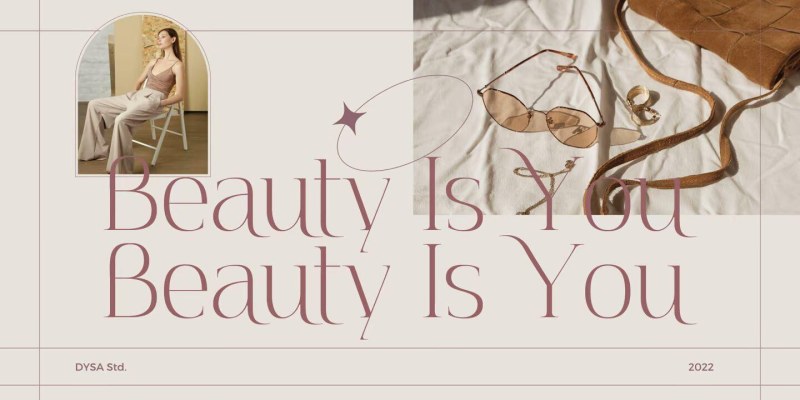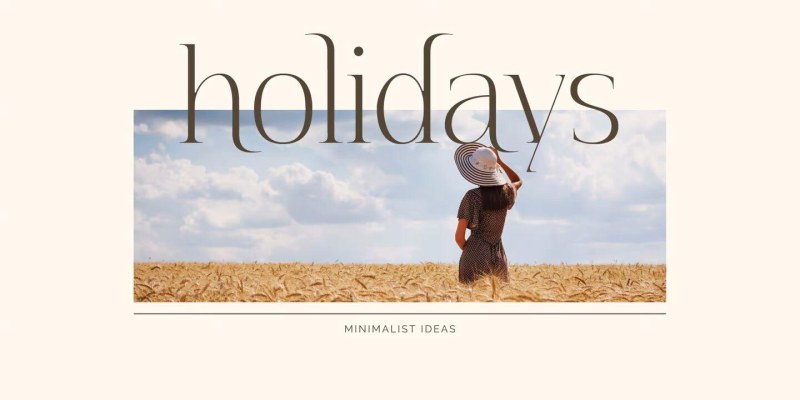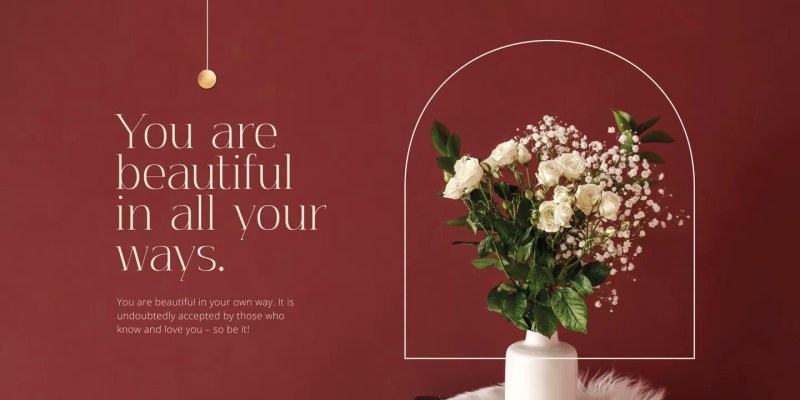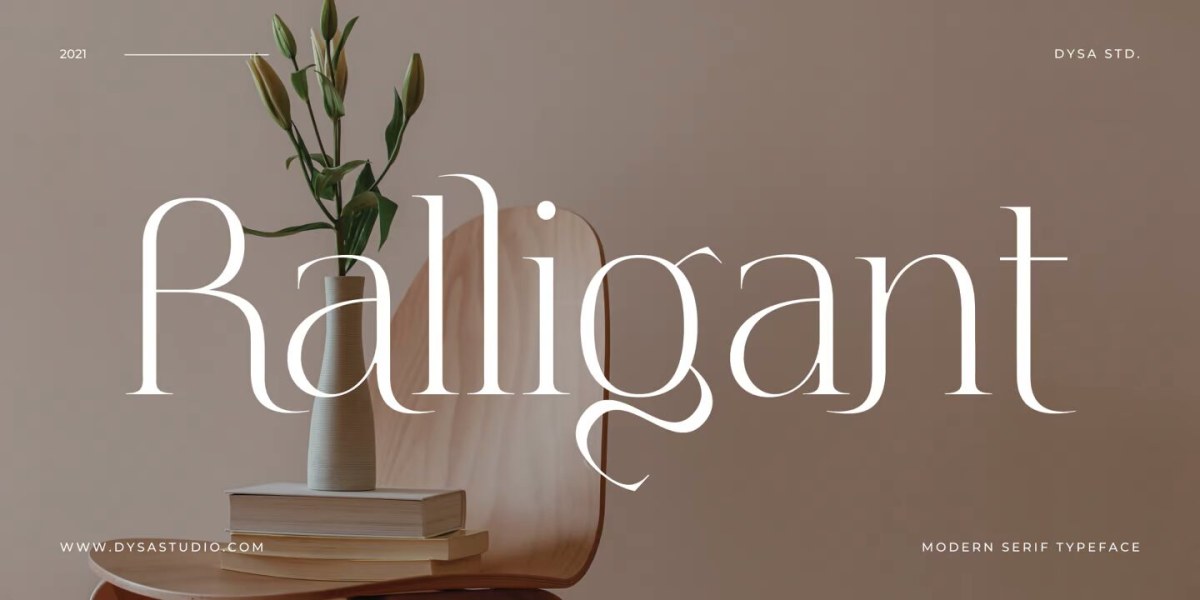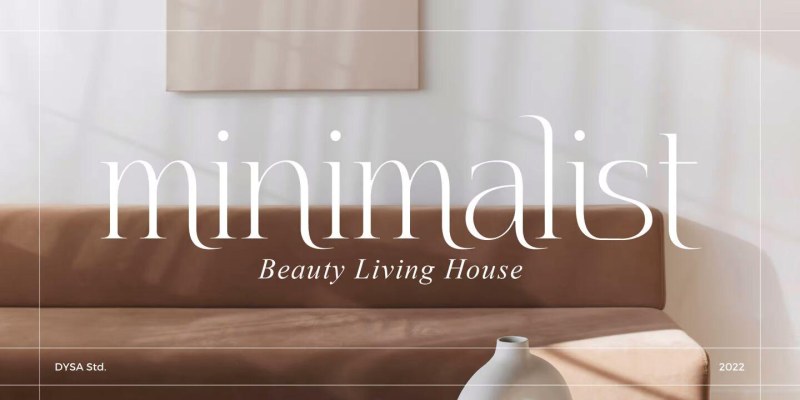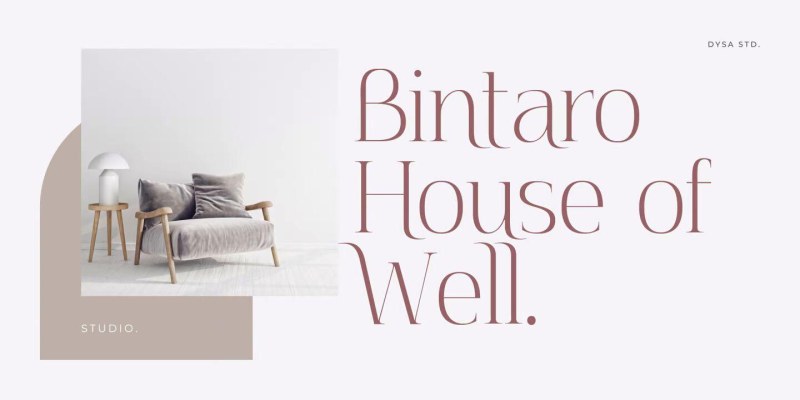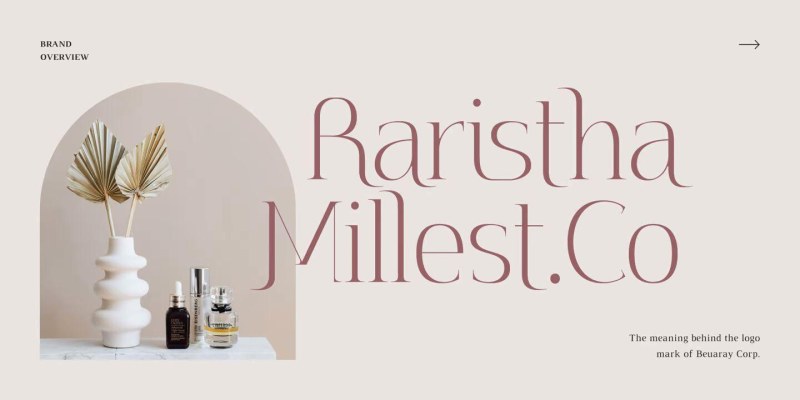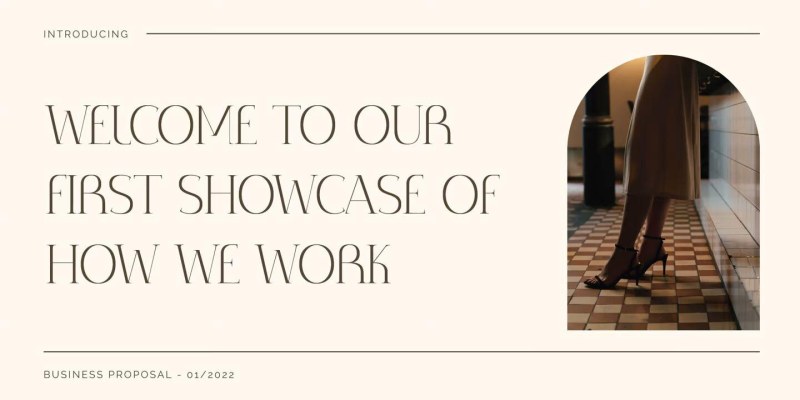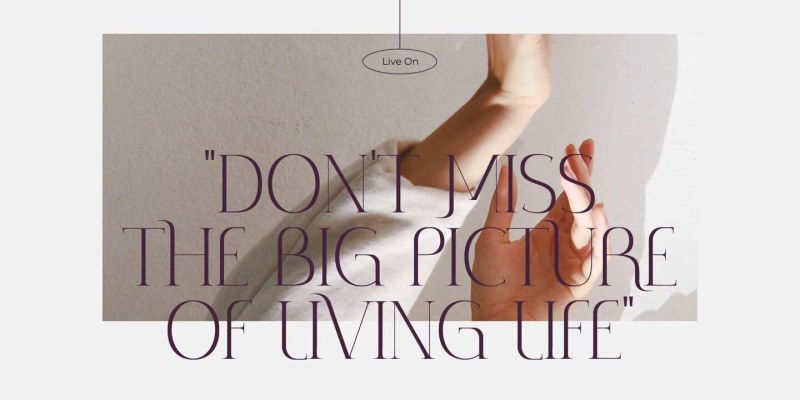
Ralligant Font
Ralligant a New Modern Serif Typeface. This other collection of serifs is perfect for your next branding project and is excellent for your business. Ralligant has smooth…
Ralligant a New Modern Serif Typeface. This other collection of serifs is perfect for your next branding project and is excellent for your business. Ralligant has smooth edges, so this font gives an authentic, handcrafted feel and style.
Where Ralligant Font works best
Ralligant Font gives long-form text a classic, trustworthy rhythm — ideal for magazine spreads, annual reports and book interiors.
Pair Ralligant Font with generous letter-spacing for wordmarks in fashion, hospitality, wine and jewellery branding.
Use Ralligant Font for slide titles in Keynote, PowerPoint or Google Slides to add authority without looking dated.
What is Ralligant Font good for?
Ralligant Font is a Serif Fonts typeface tagged Branding, Modern, Professional, Serif. It works well for headlines, logos, posters, social media graphics and branding projects that need a distinctive serif fonts look.